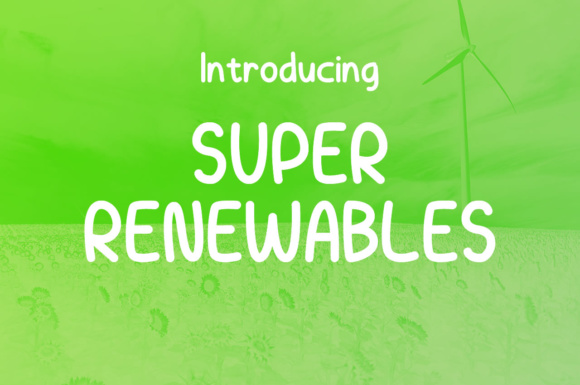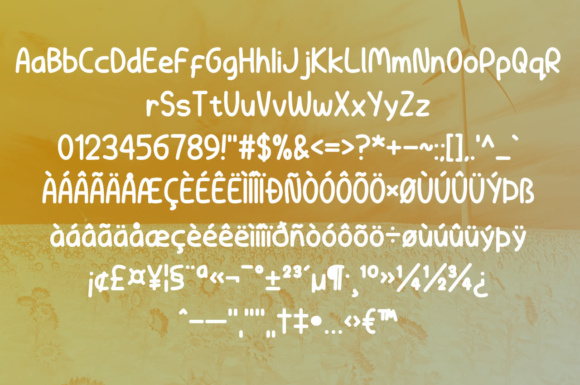
HomeScript FontsSuper Renewables Font Script Fonts Super Renewables Font FacebookXPinterestWhatsApp Super Renewables Font Poster 2 About Super Renewables Font Natural, clean and maybe a little naive, “Super Renewables” evokes the spirit of environmentalism. DOWNLOAD NOW People also explored Anokha Font College Game JNL Font Maghee Jolla Font Hatsumi Font Amsterdams Font Wonder [2 Fonts] Font Runway Haesley Thougai Font 265 0 TagsSuper Renewables Font Previous articleTintenfische FontNext articleYou Are a TOY! Font LEAVE A REPLY Cancel reply Comment: Please enter your comment! Name:* Please enter your name here Email:* You have entered an incorrect email address! Please enter your email address here Website: Save my name, email, and website in this browser for the next time I comment. Personal Use Free Archipellago Personal Use Free Read more about this font Vanilla Whale Personal Use Free Read more about this font Larosh Sithal Duo Personal Use Free Read more about this font Kumadinya Personal Use Free Read more about this font BLOG Top 10 Handwritten Fonts That Elevate Your Designs Top 10 Handwritten Fonts That Will Elevate Your Designs Handwritten fonts bring a warm, personal touch to every creative project. Whether you're designing logos, invitations,... Best Fonts for T-Shirt Design – Top 2025 Picks Where to Buy American Fonts Online in 2024 Exploring Font Trends